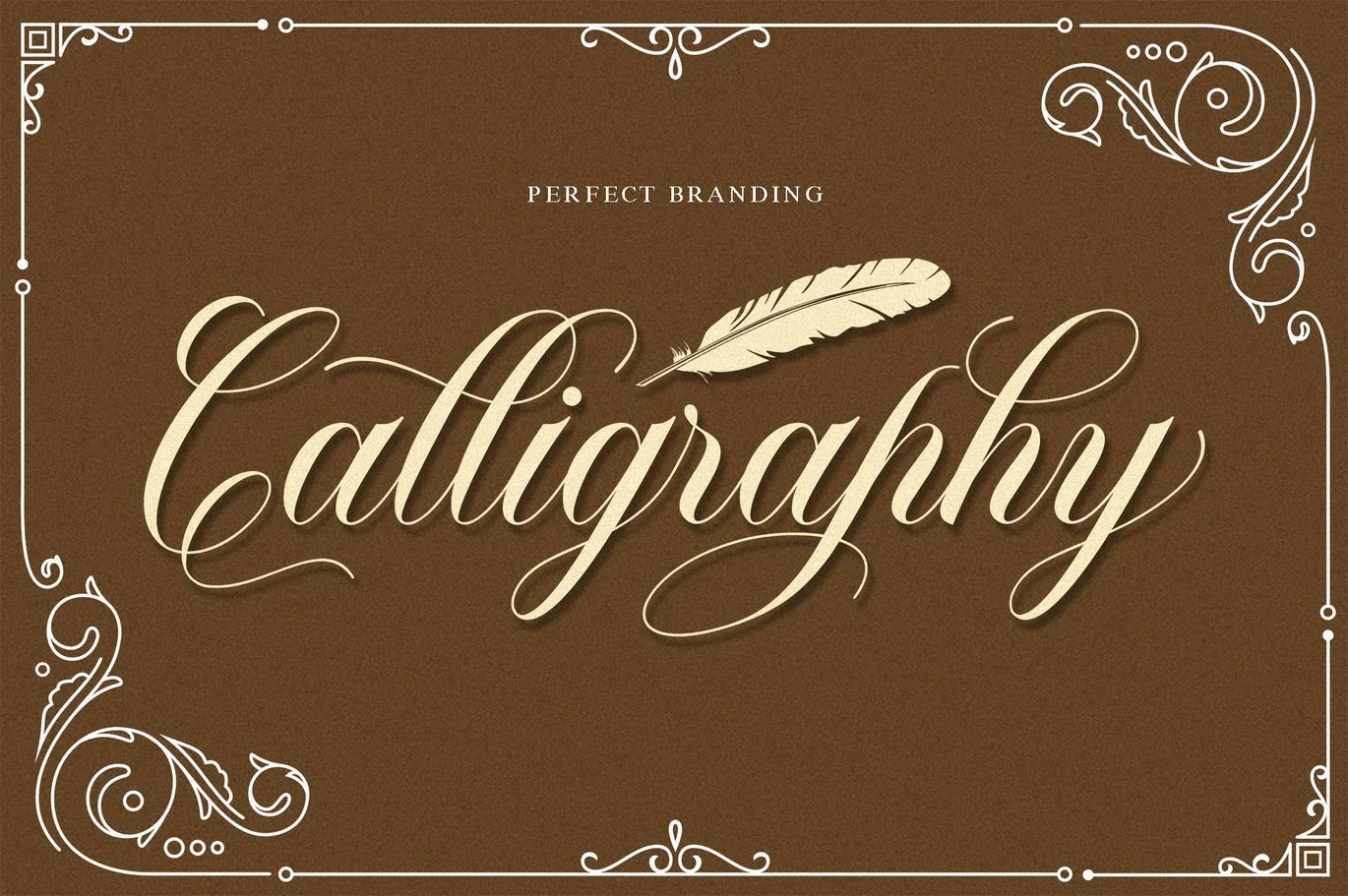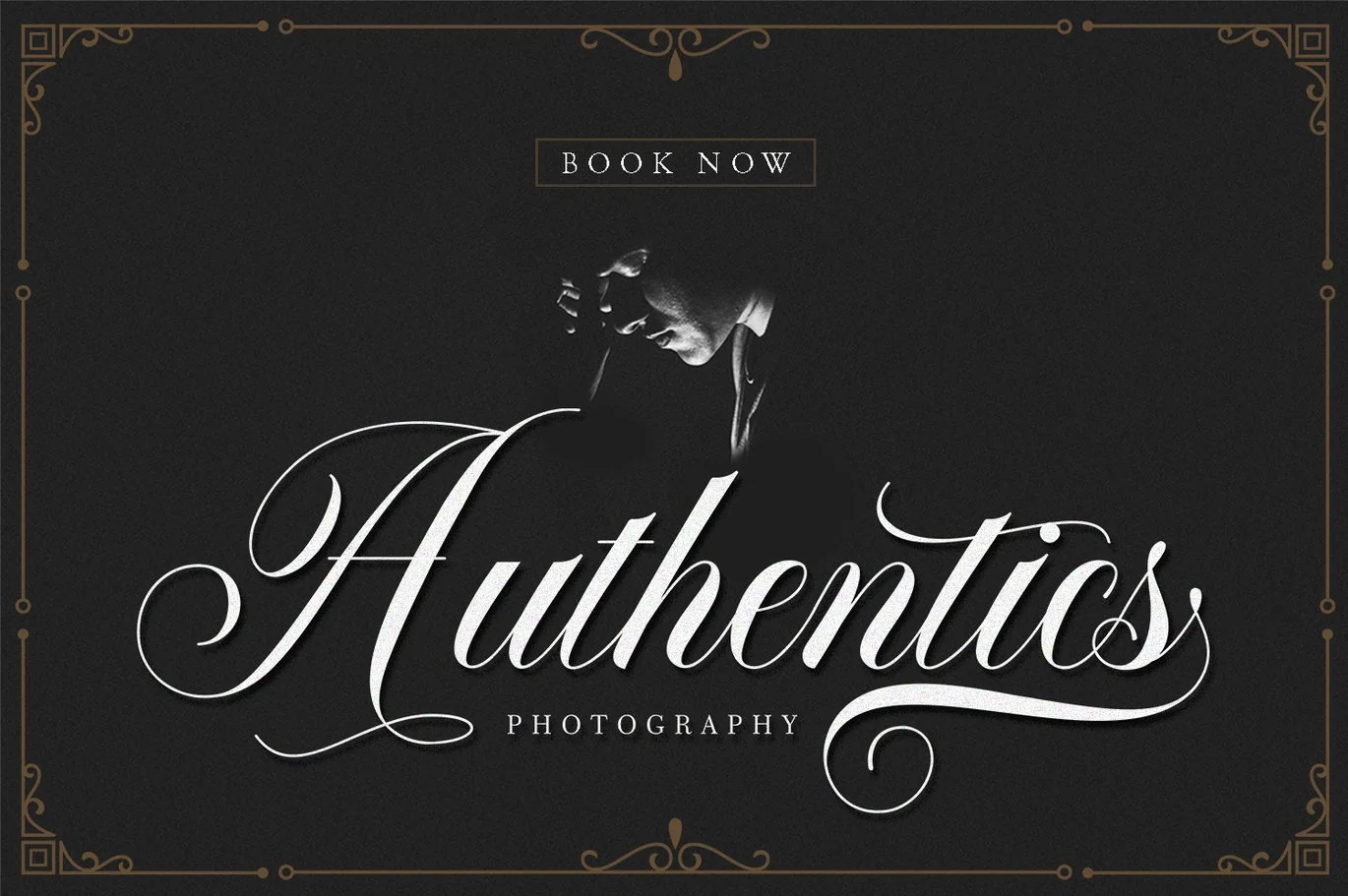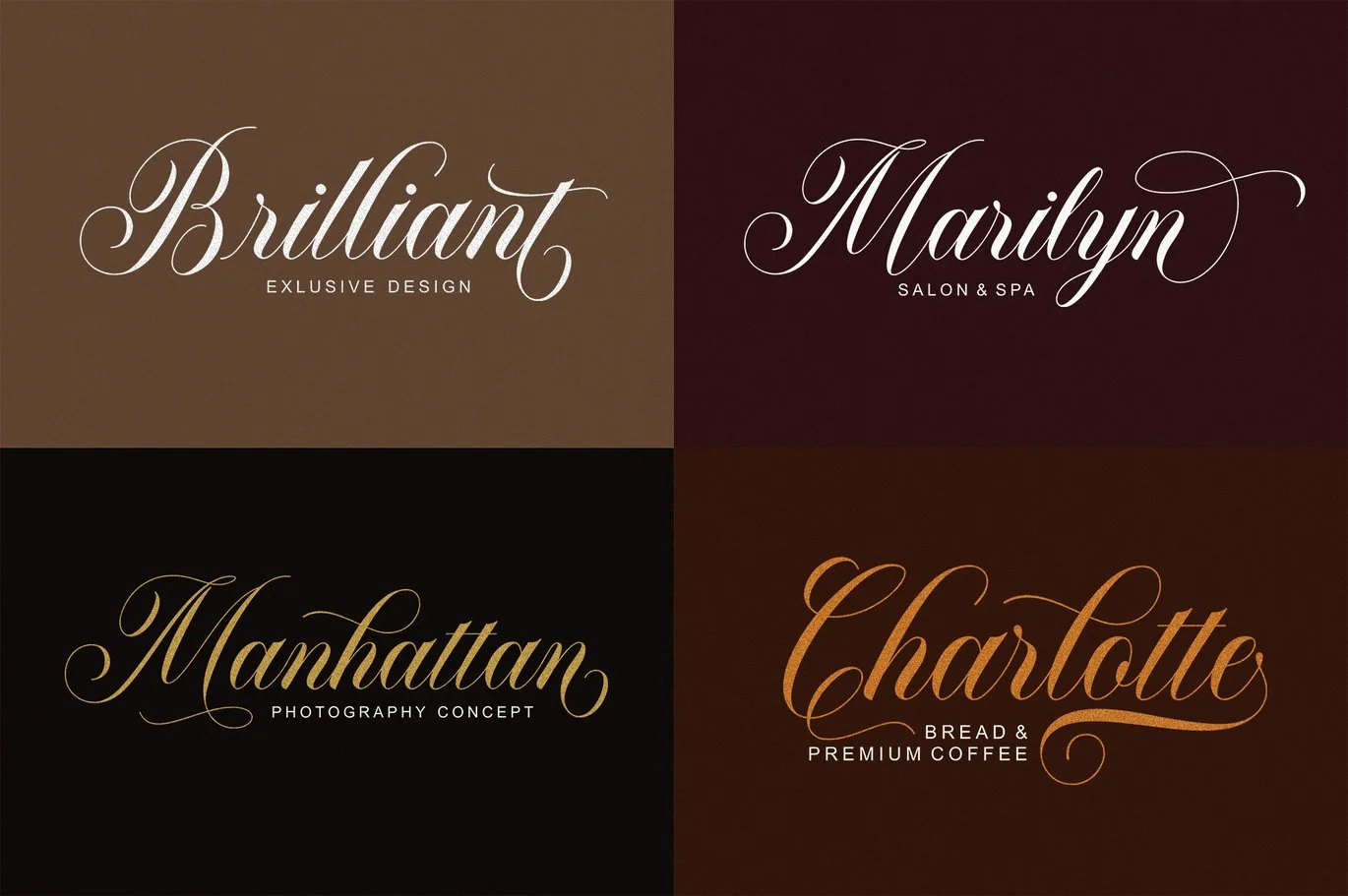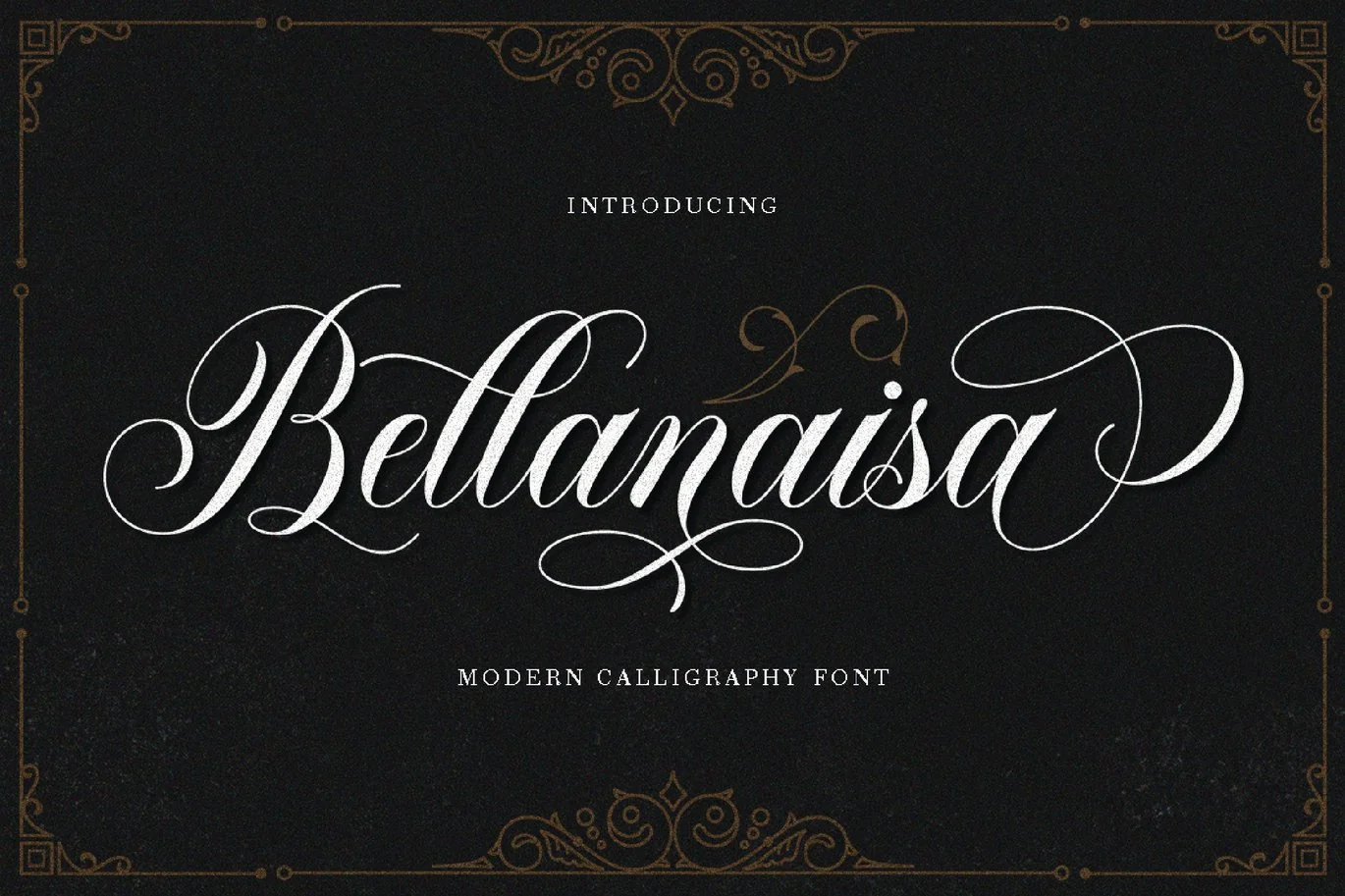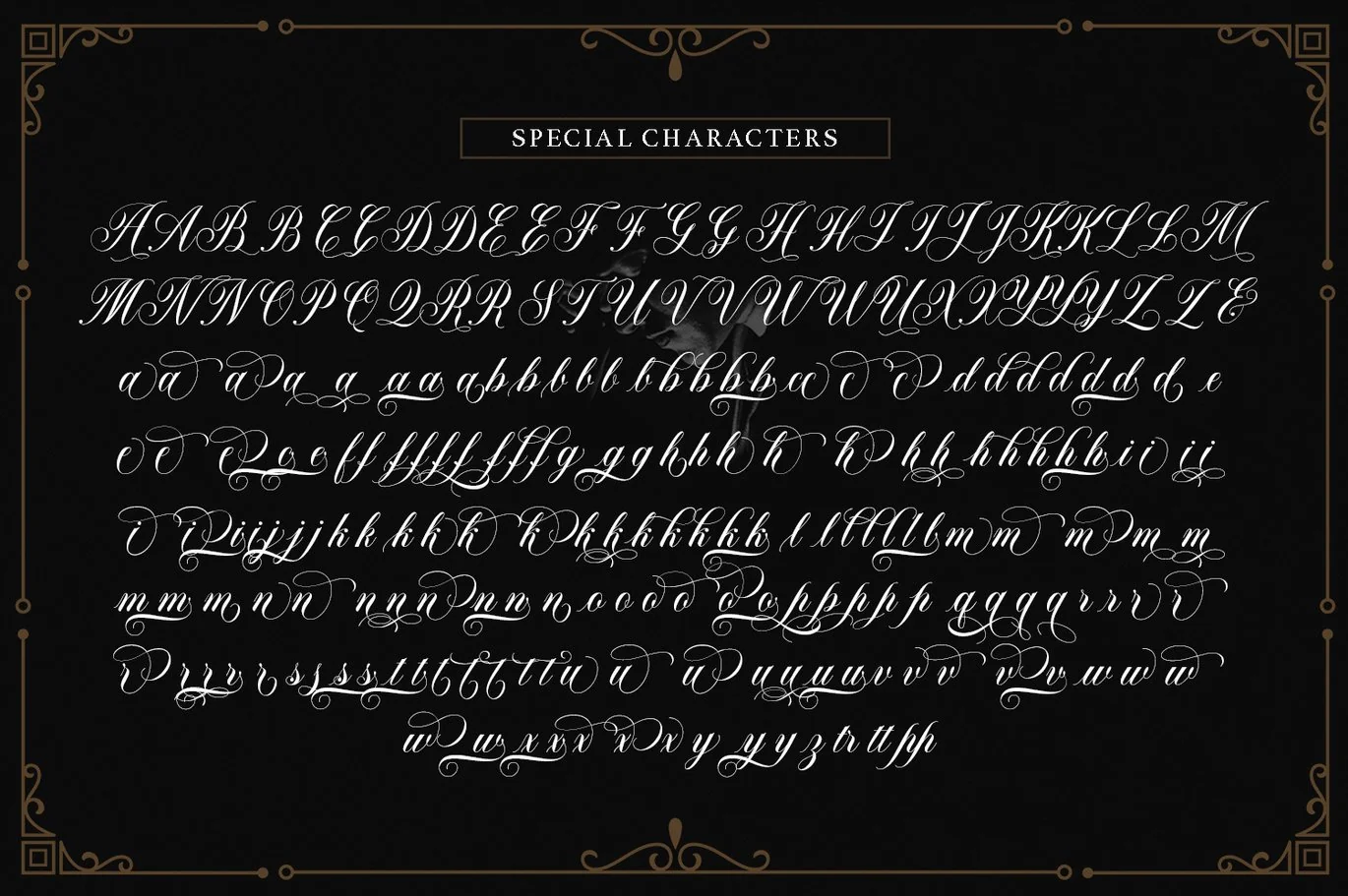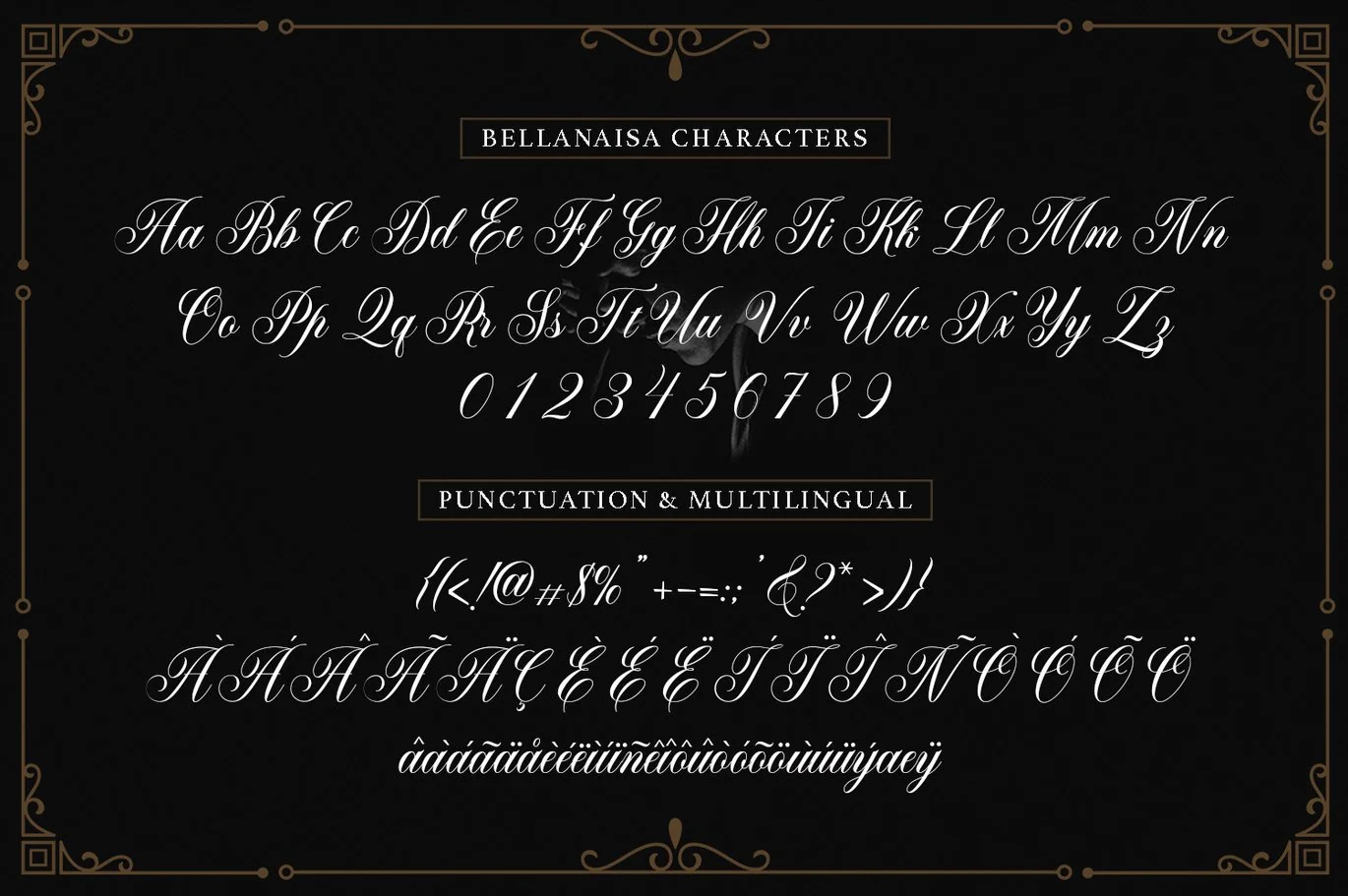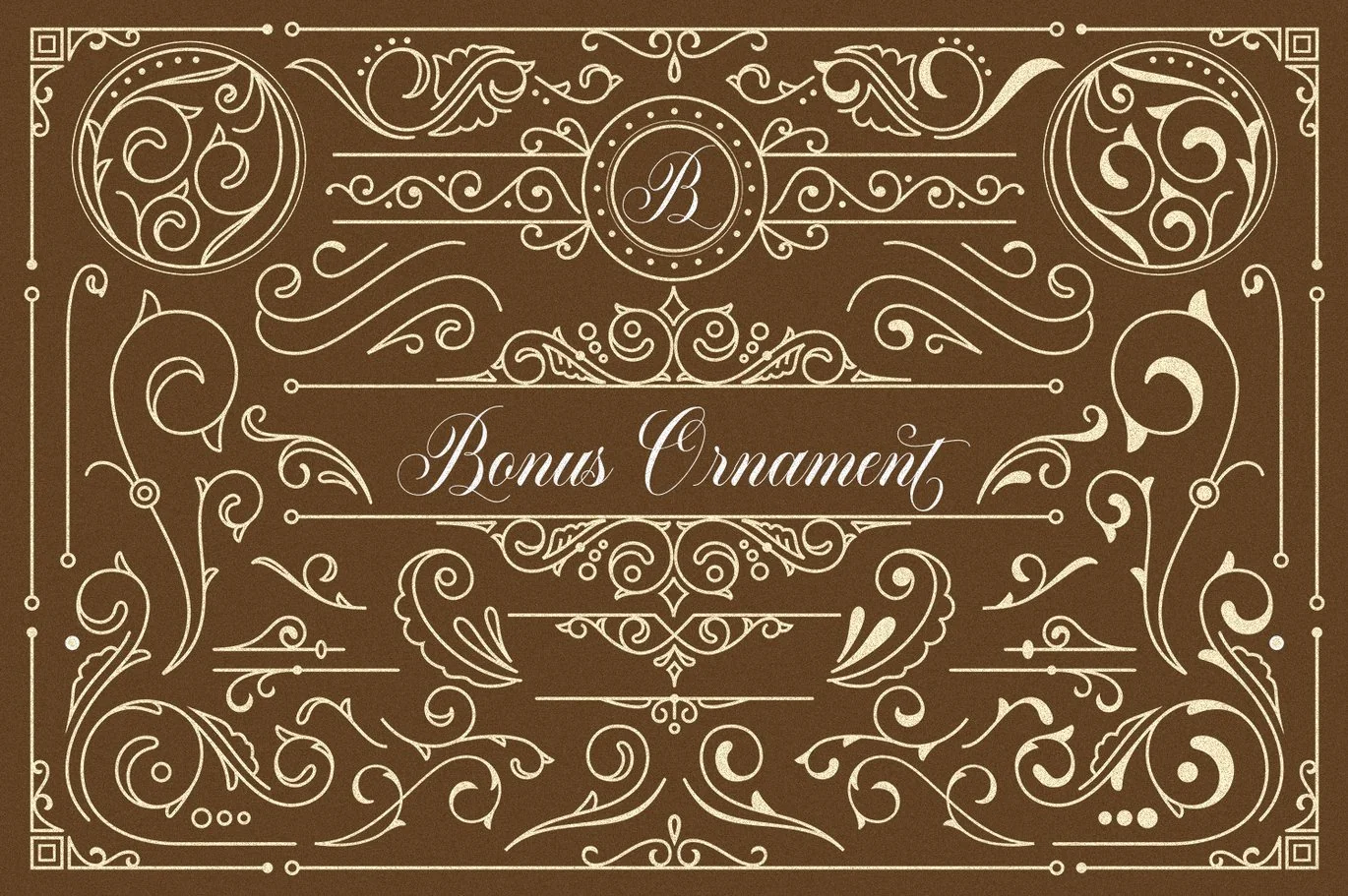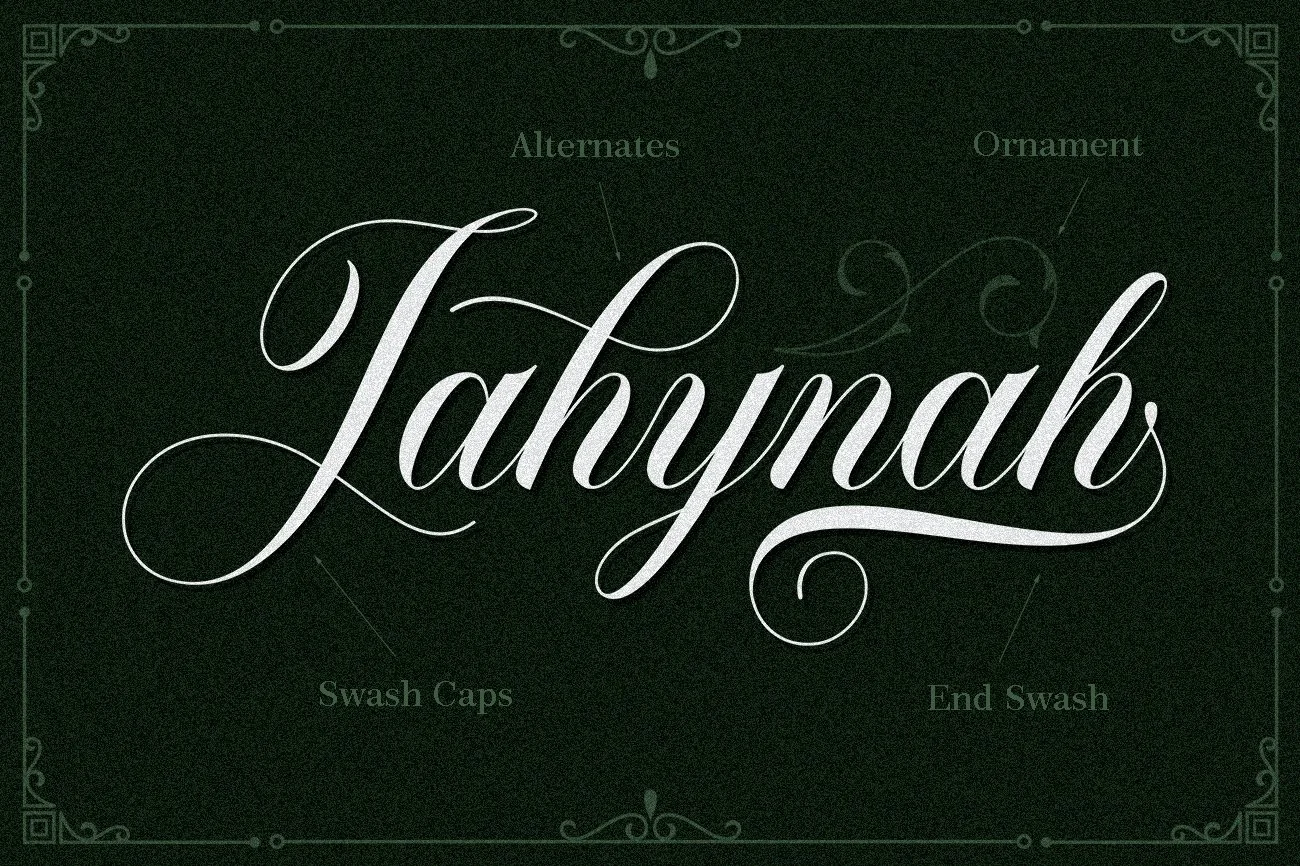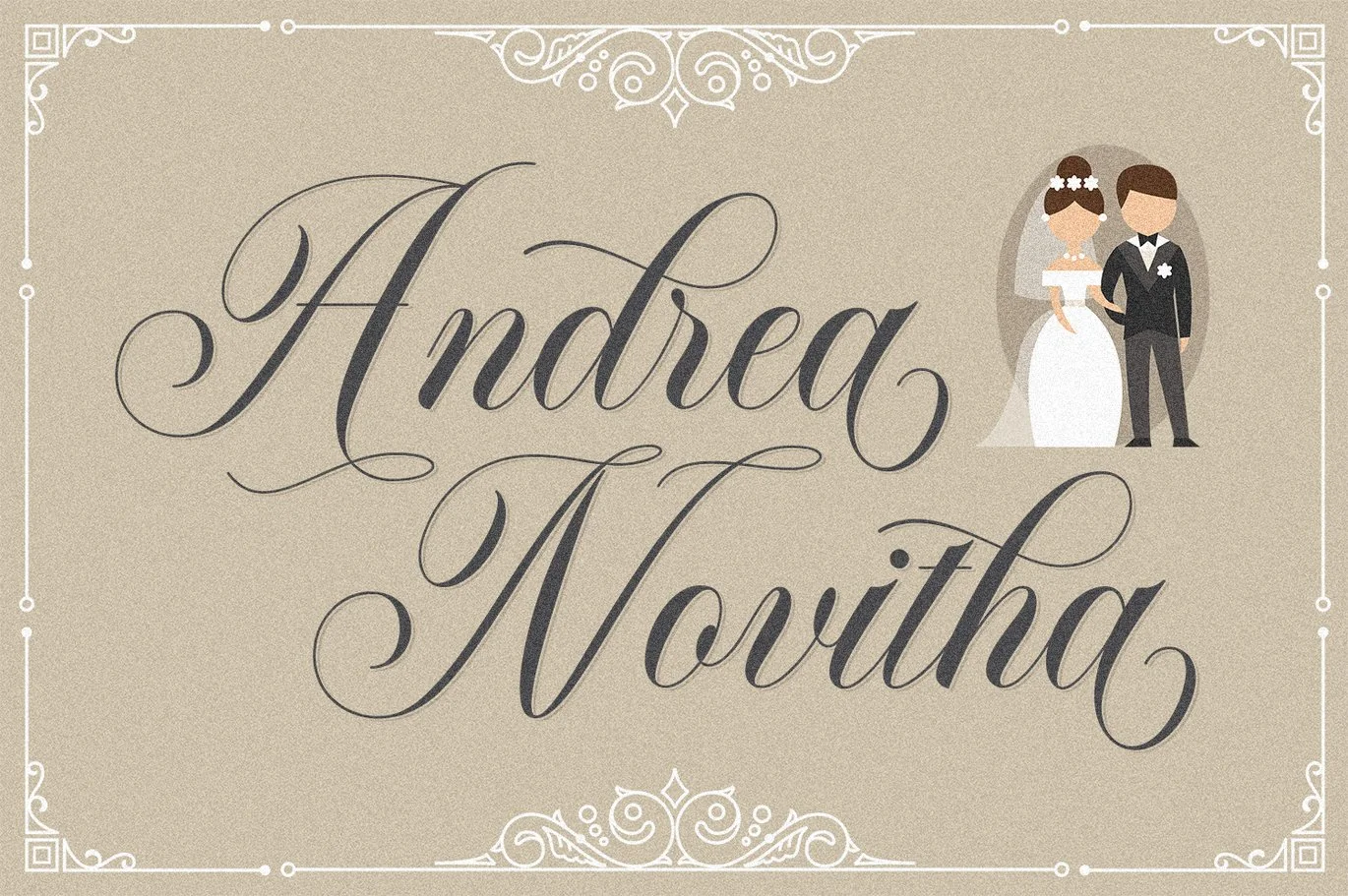
Bellanaisa – Calligraphy Font + Ornament
Bellanaisa Script – a new fresh & modern calligraphy style, decorative characters and a dancing baseline! a mixture of from copperplate calligraphy with hand lettering style. So beautiful on invitation like greeting perfect to be applied in any type of formal pieces such invitations, labels, menus, Logos, make up, stationery, letterpress, romantic novels, magazines, books, greeting / wedding cards, packaging, labels, cards, branding materials, business cards, quotes, posters, and more design concept!
Including multiple language support. With OpenType features with stylistic alternates, ligatures and swash characters, that allows you to mix and match pairs of letters to fit your design, and also a touch of ornament makes this font look elegant and classy.
Alternates
- Unique ligatures
- Stylistic Swash Alternates
- Stylistic sets
- International Symbols include